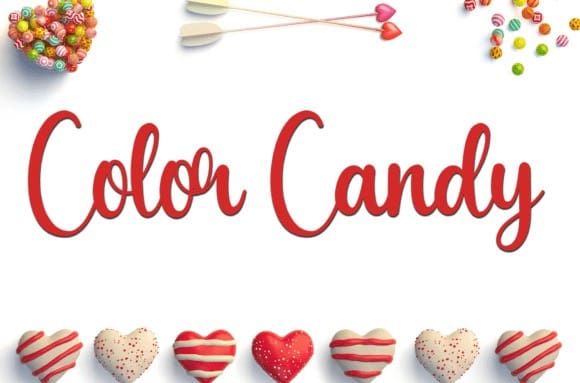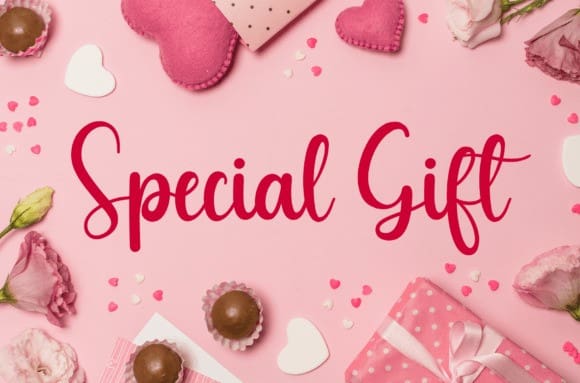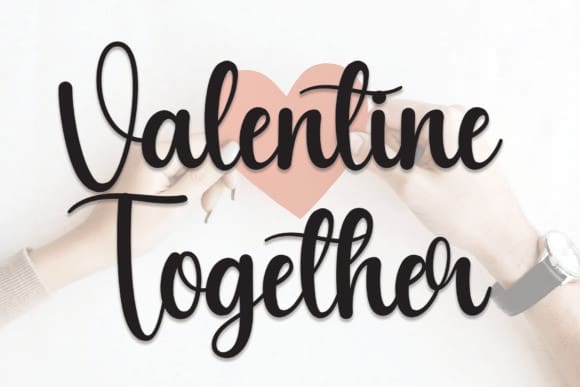
Valentine Together Font
Valentine Together Font feels equally charming and elegant. It looks stunning on wedding invitations, thank you cards, quotes, greeting cards, logos, business cards, and every other design which needs a handwritten touch.